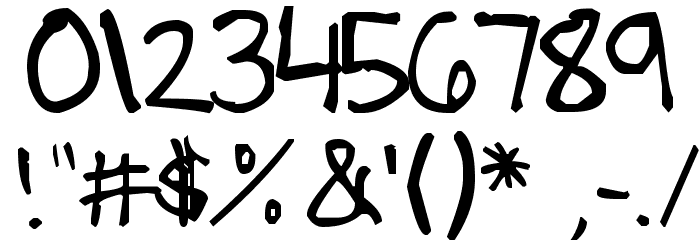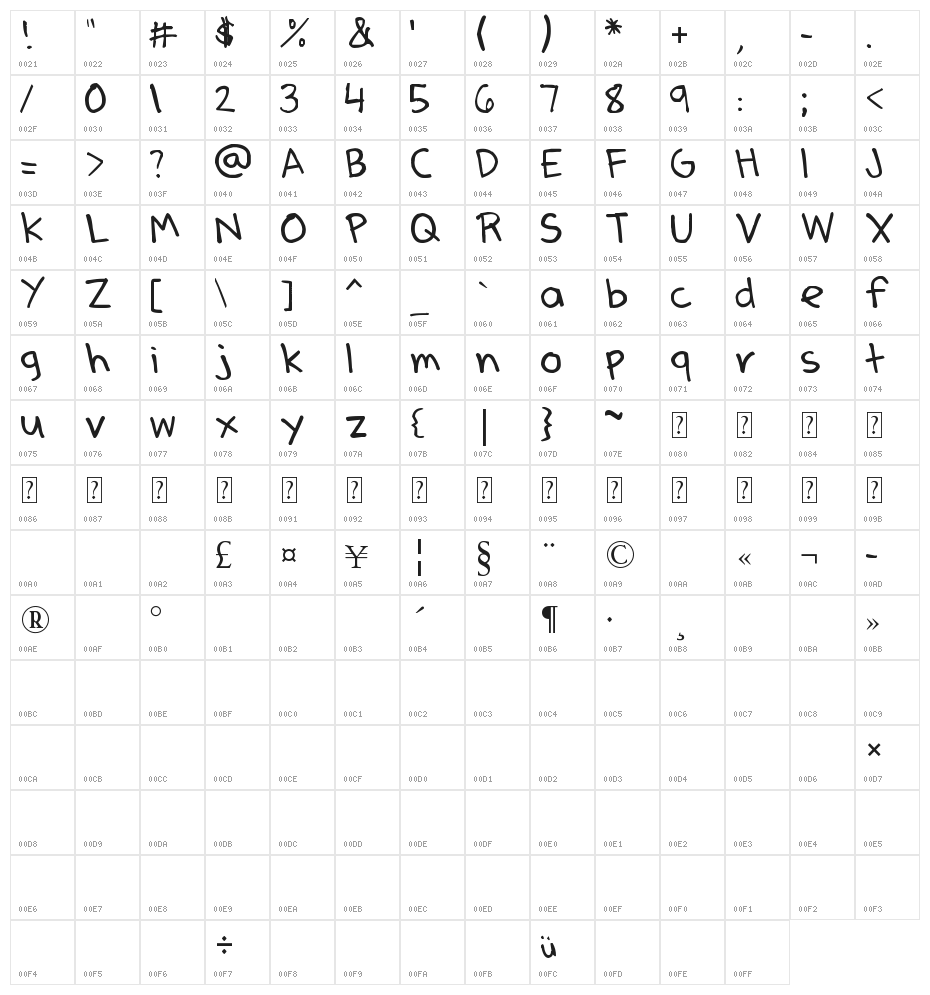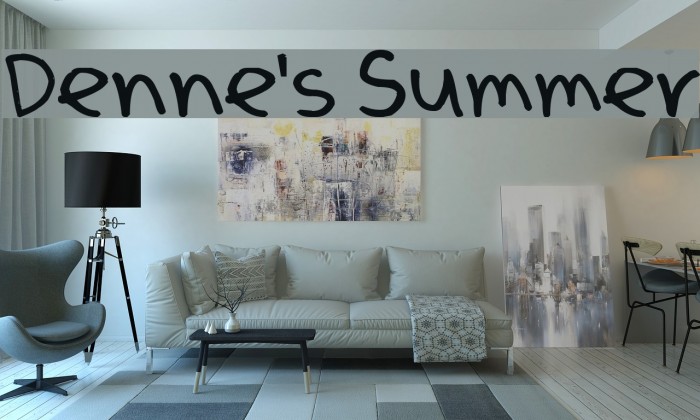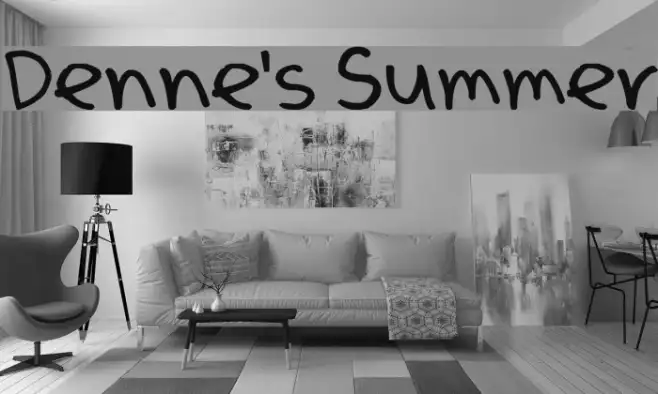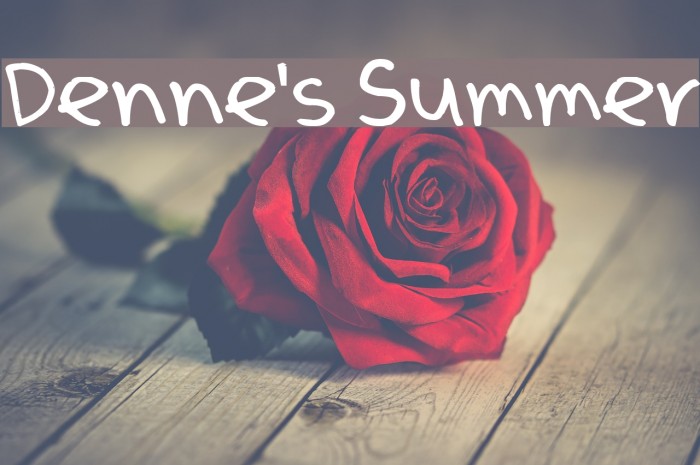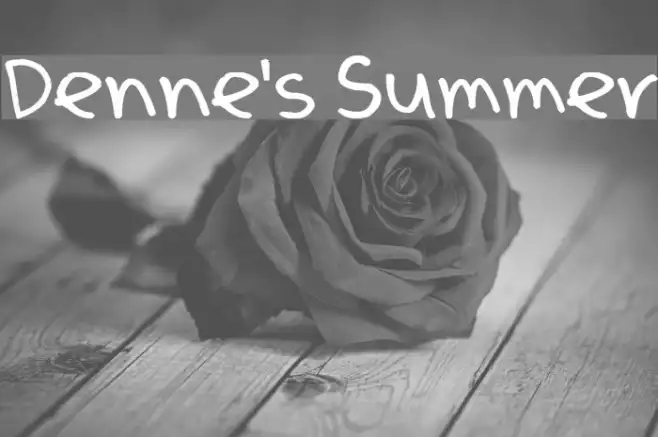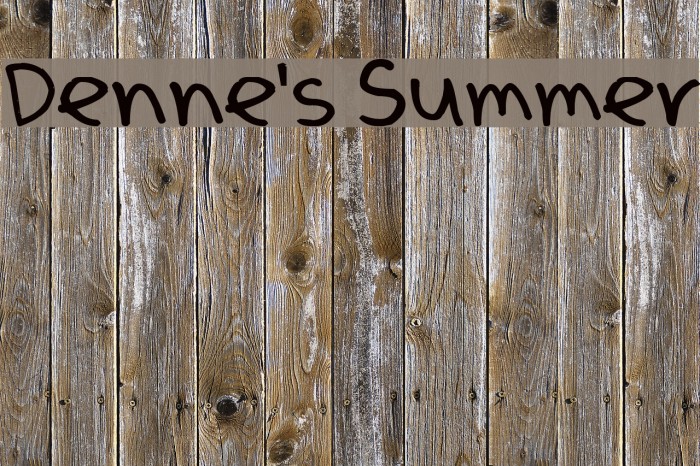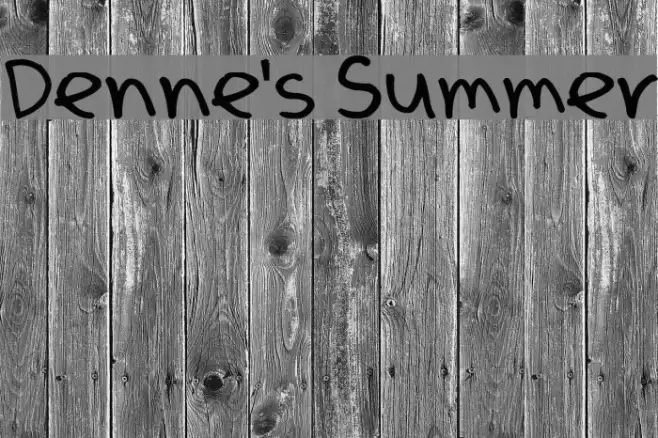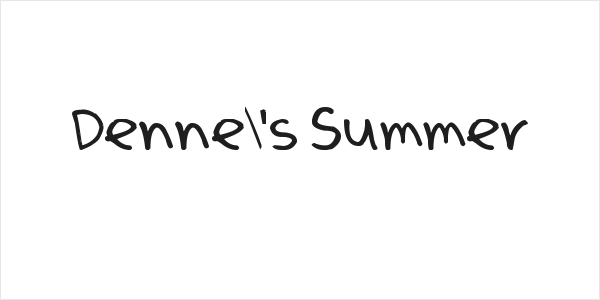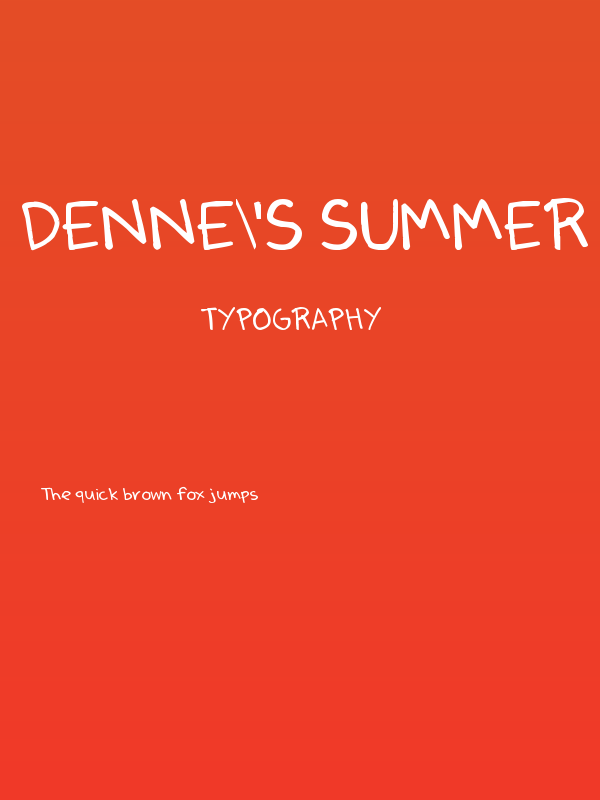
Denne's Summer Font
Denne's Summer Description
This font exudes a casual and playful vibe, characterized by its handwritten style that mimics natural penmanship. The letters are slightly irregular, adding a personal touch and a sense of authenticity. The strokes are consistent in thickness, providing a uniform appearance across all characters. The uppercase and lowercase letters maintain a friendly and approachable look, making it suitable for informal communications. Numbers and special characters are crafted with the same playful style, ensuring cohesion throughout the font set. This font is perfect for projects that require a human touch, such as personal notes, invitations, or creative branding.